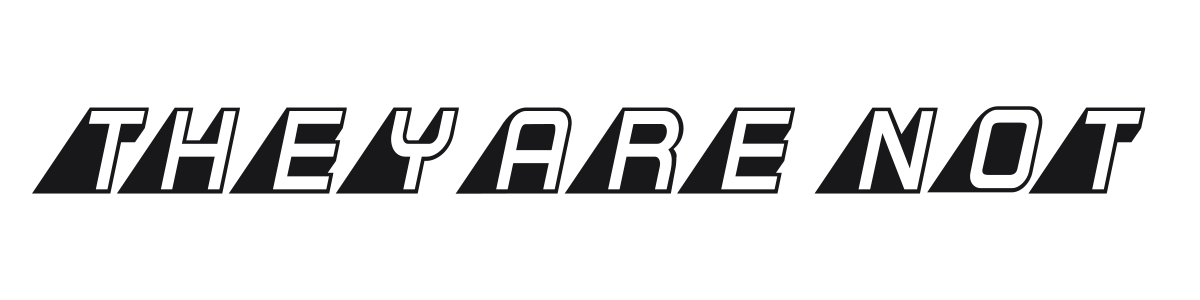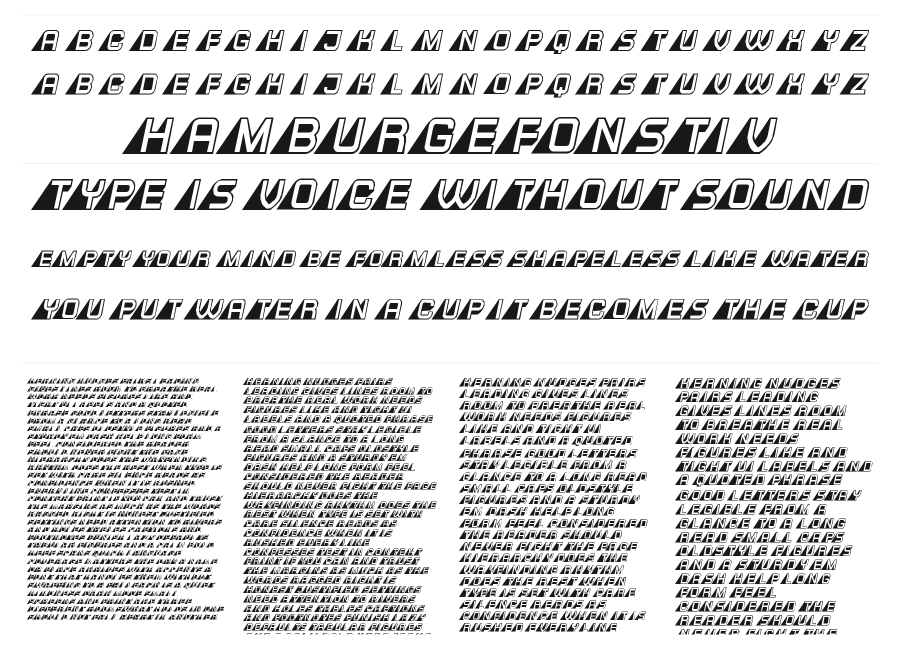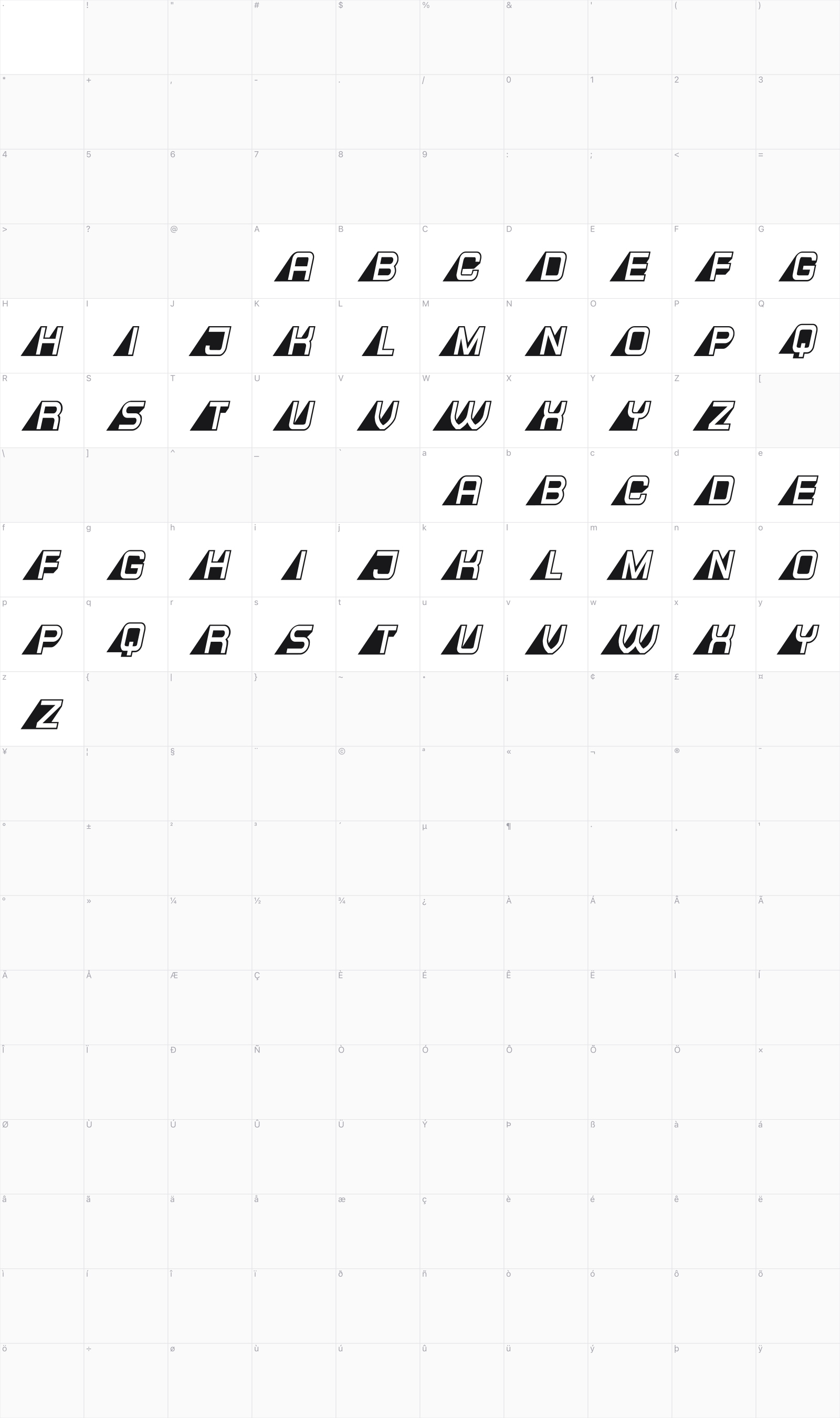
They Are Not
They Are Not is a boldly italicized techno display font with a striking inline stripe slicing through each character. The hard angles, extreme slant, and split-stroke detail give it an unmistakable sense of velocity and a sci-fi or action-movie edge. Best deployed large where its aggressive geometry can do its work.